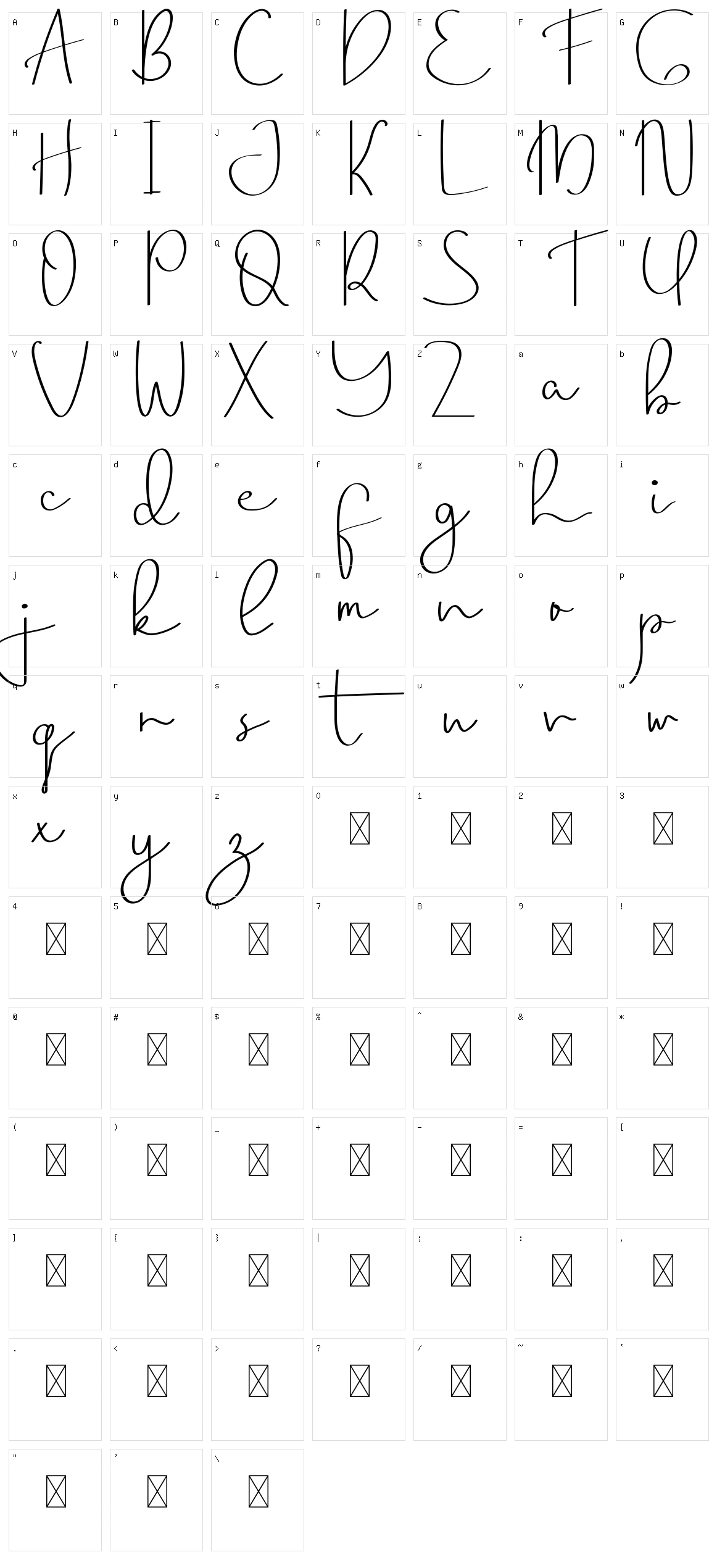
The free font Mile Green is carefully designed by Edric Studio, showcasing a thoughtful balance of creativity and usability and falls under the Script font style. When you download the ZIP file, it contains only 14.09 KB of font files, making it lightweight and quick to download. Please review the license details below to understand permitted usage and distribution rights. If license information is not available, we recommend using this font for personal projects only or contacting the author directly for commercial usage permissions.